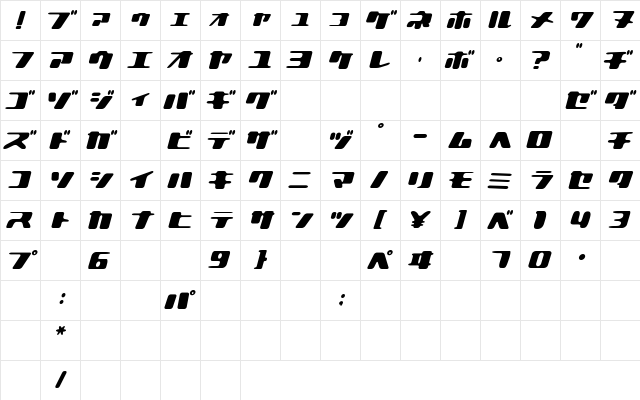
LBIlovely bold italic Kana Kat Font Preview
Design Context for LBIlovely bold italic Kana Typeface
LBIlovely bold italic Kana offers clean, dependable letterforms without strong stylistic allegiance, making it a practical choice for designers who need flexibility. Its italic angle brings a sense of urgency and motion to the letterforms. The heavy weight commands attention and anchors typographic hierarchies.
Pro Tip: Use LBIlovely bold italic Kana for emphasis, pull quotes, and subheadings where its slanted energy can add rhythm to the layout.